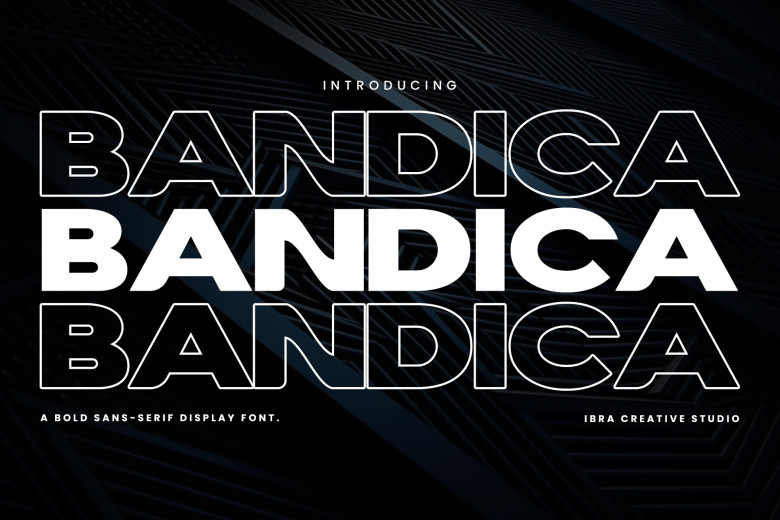
Bandica Font
Bandica is another sans-serif display font that is modern and powerful in the approach for those who want to get their message out there. It has straight cuts and is sans serif, which gives it a rather confident and a modern look. The wide width of Bandica only adds to the overall heaviness, and that makes it a great fit for headlines, banners, and anything that has to stand out.
Most of the letterforms are magnum opus created and the balance between legibility and ornamentation has been created diligently.
Bandica Sans Serif Font